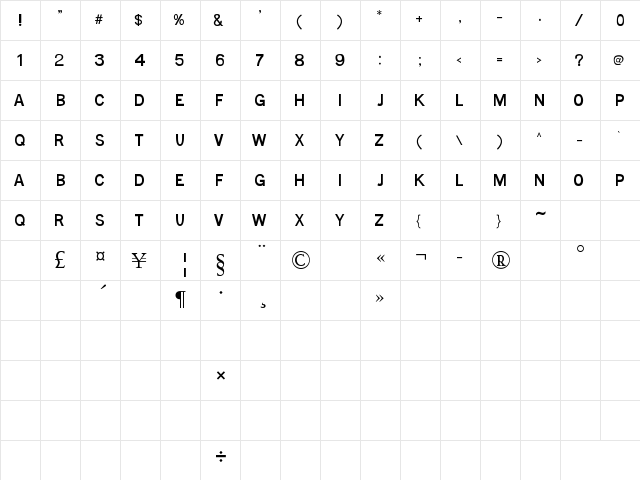
MTF Base Regular
| Designer | Miss Tiina |
Design Context for MTF Base Typeface
MTF Base is a composed and adaptable typeface that performs quietly and consistently across a wide range of design contexts.